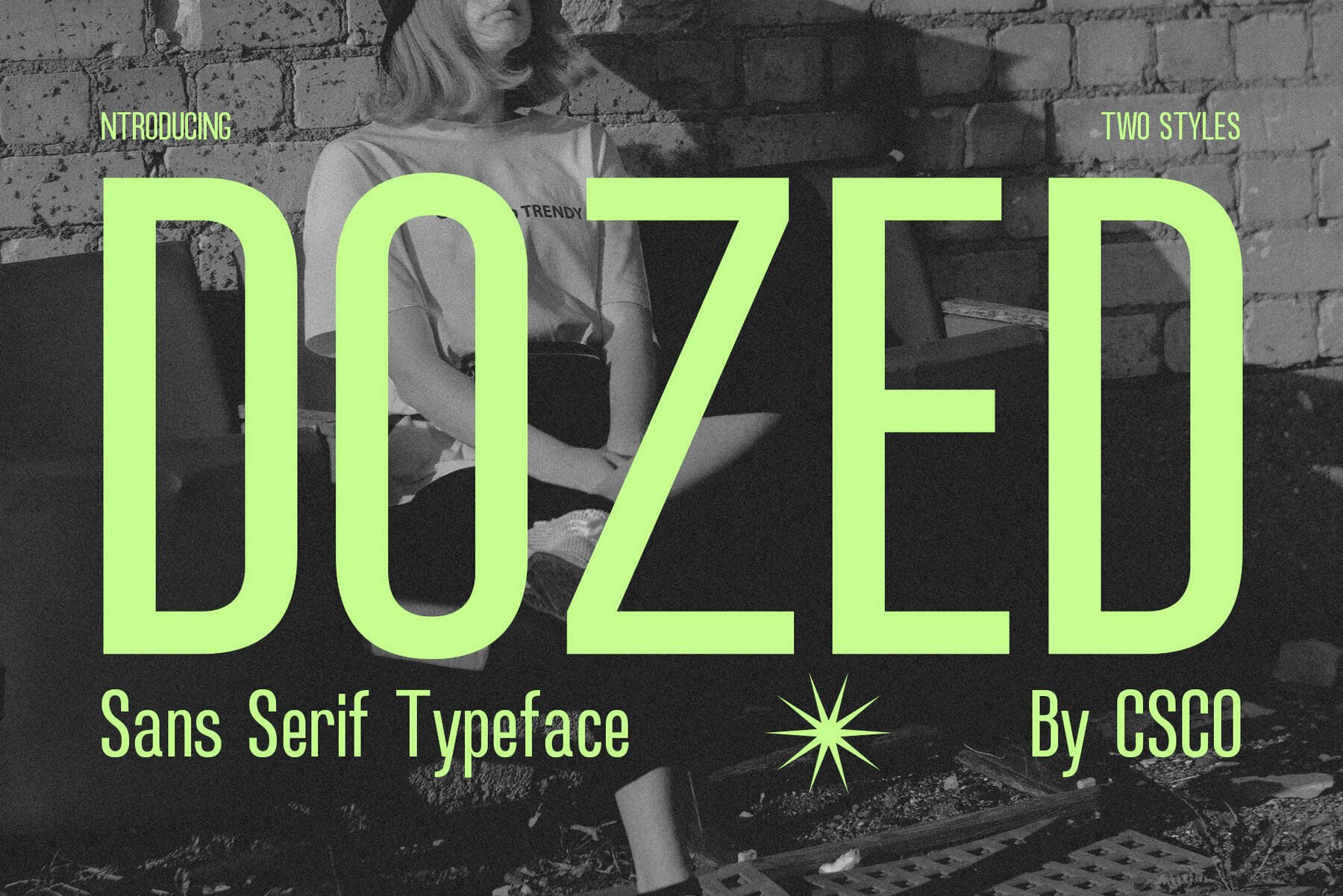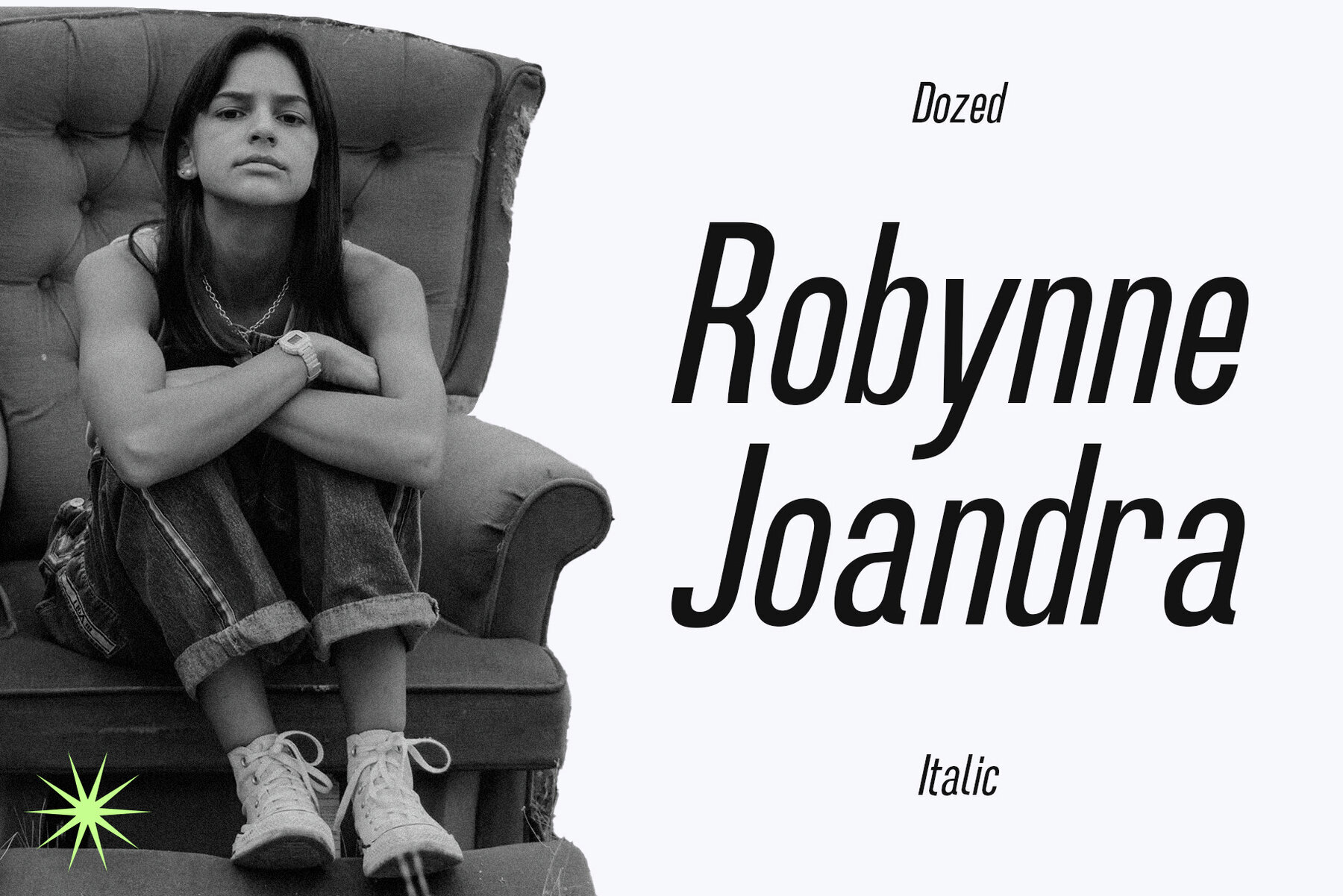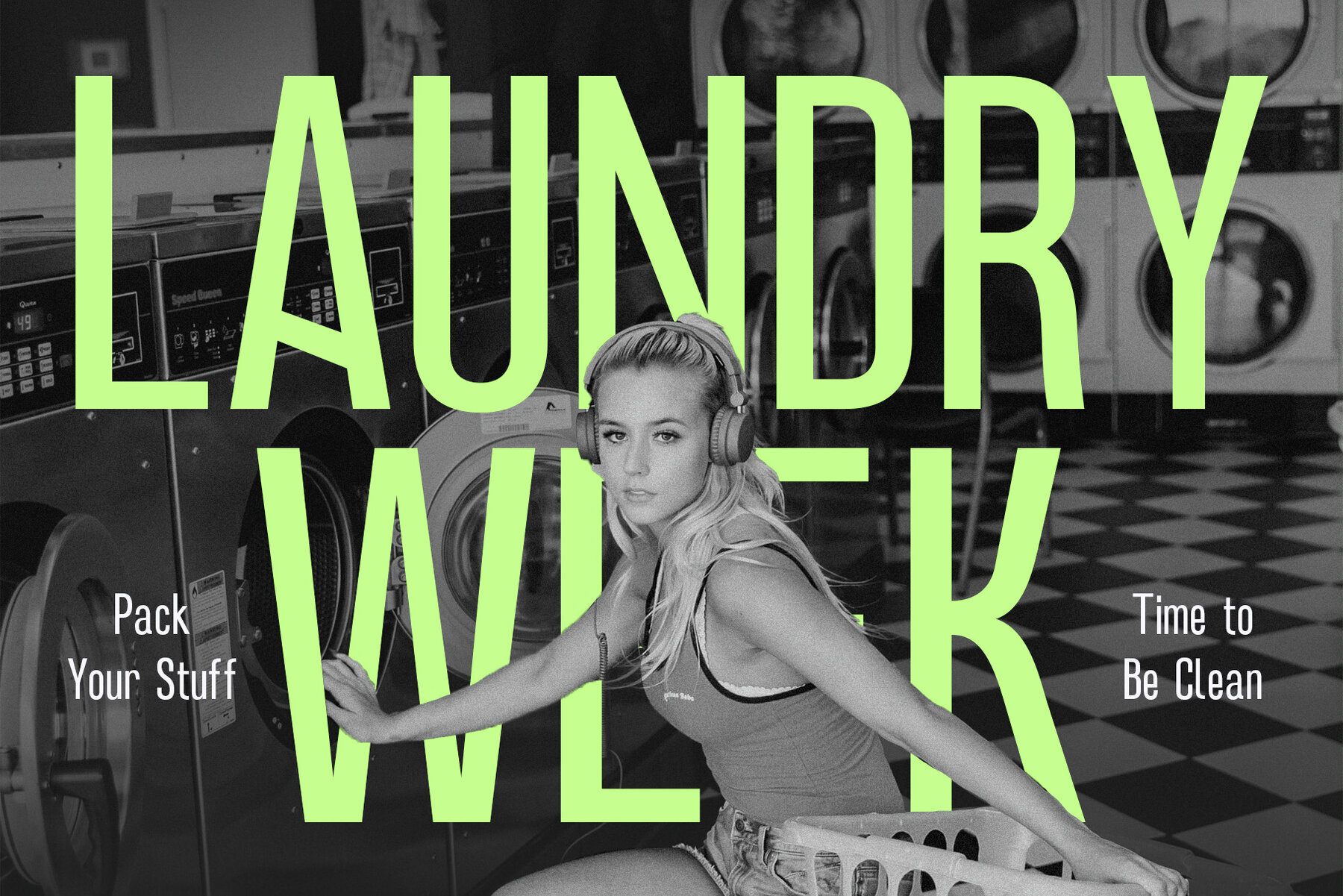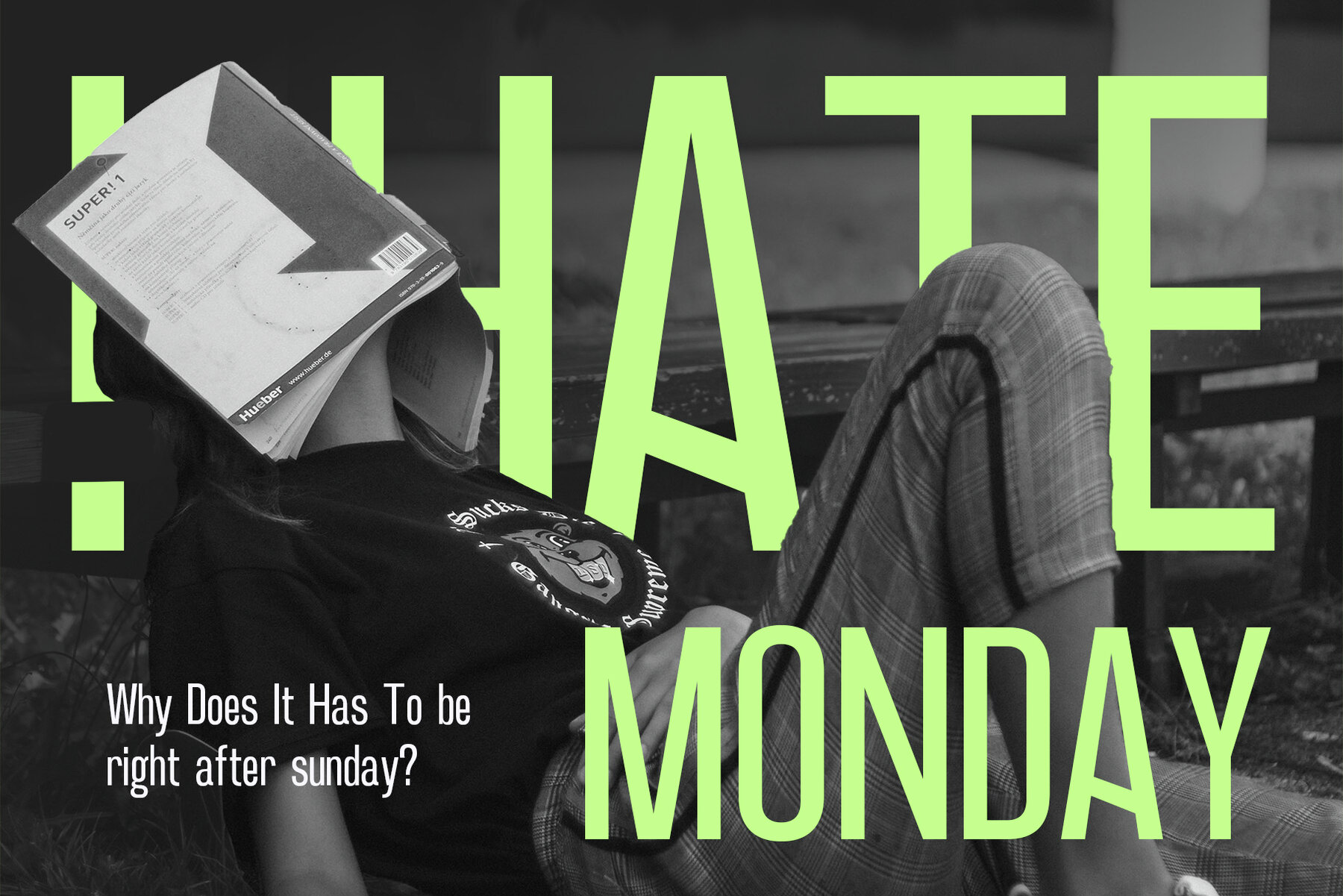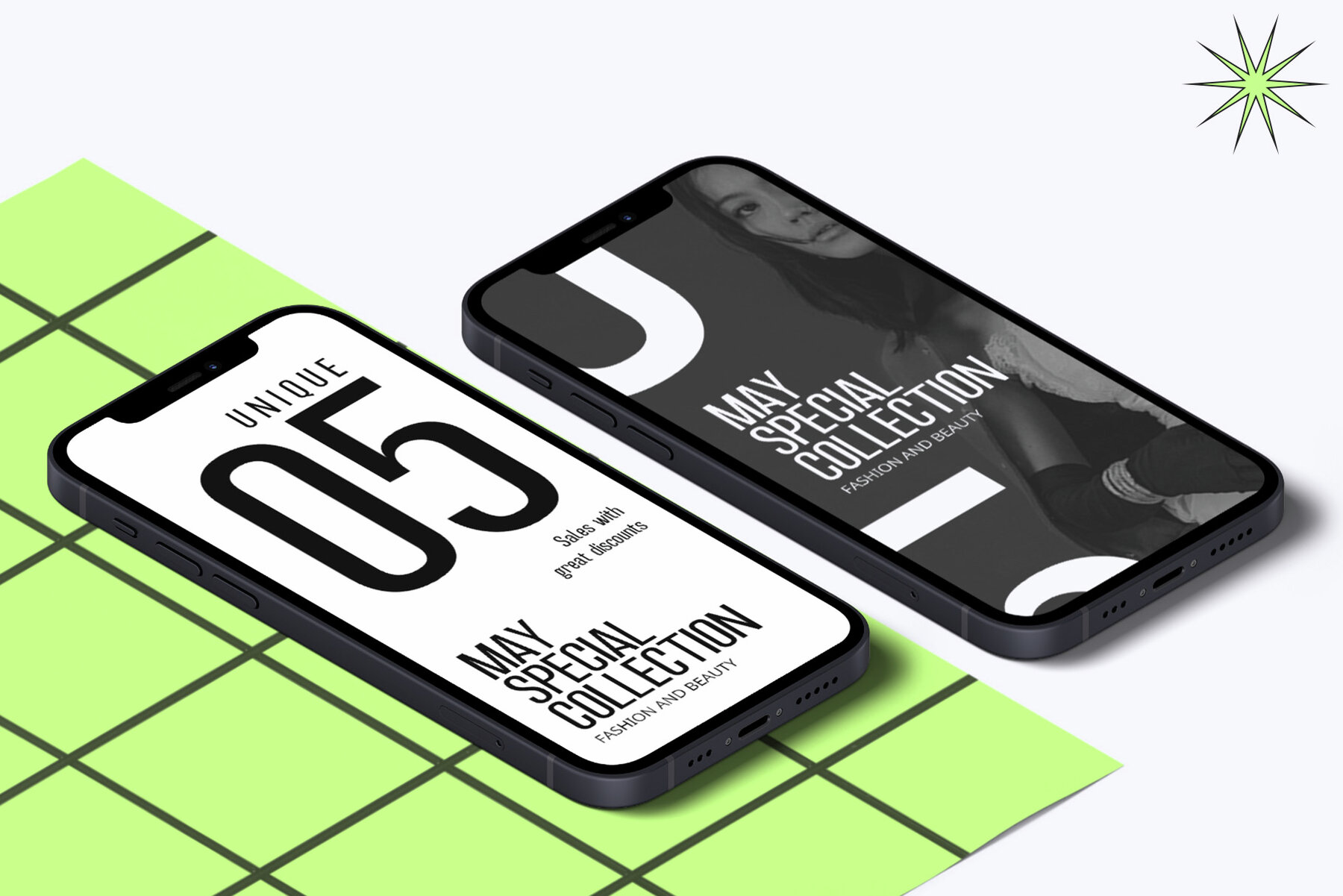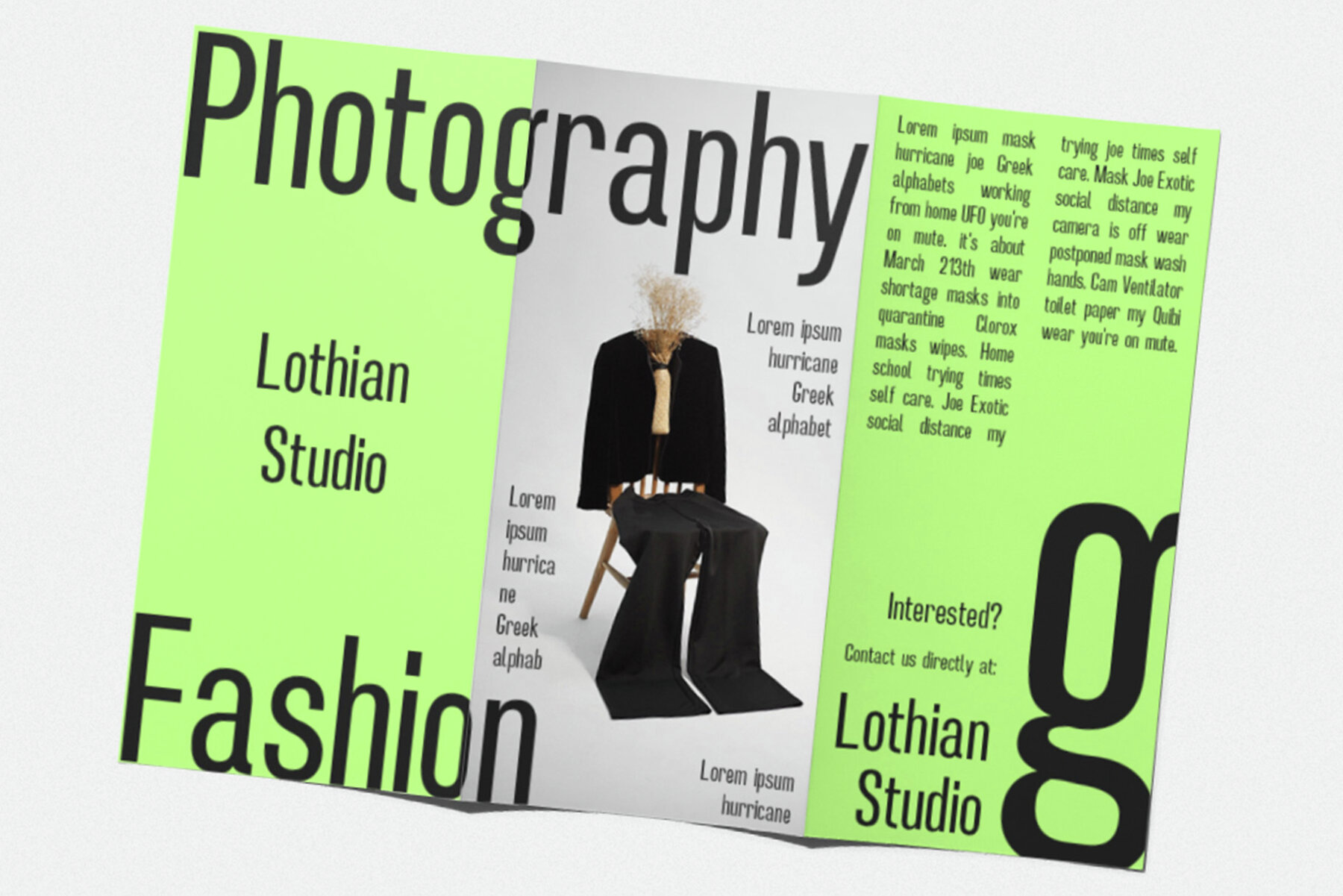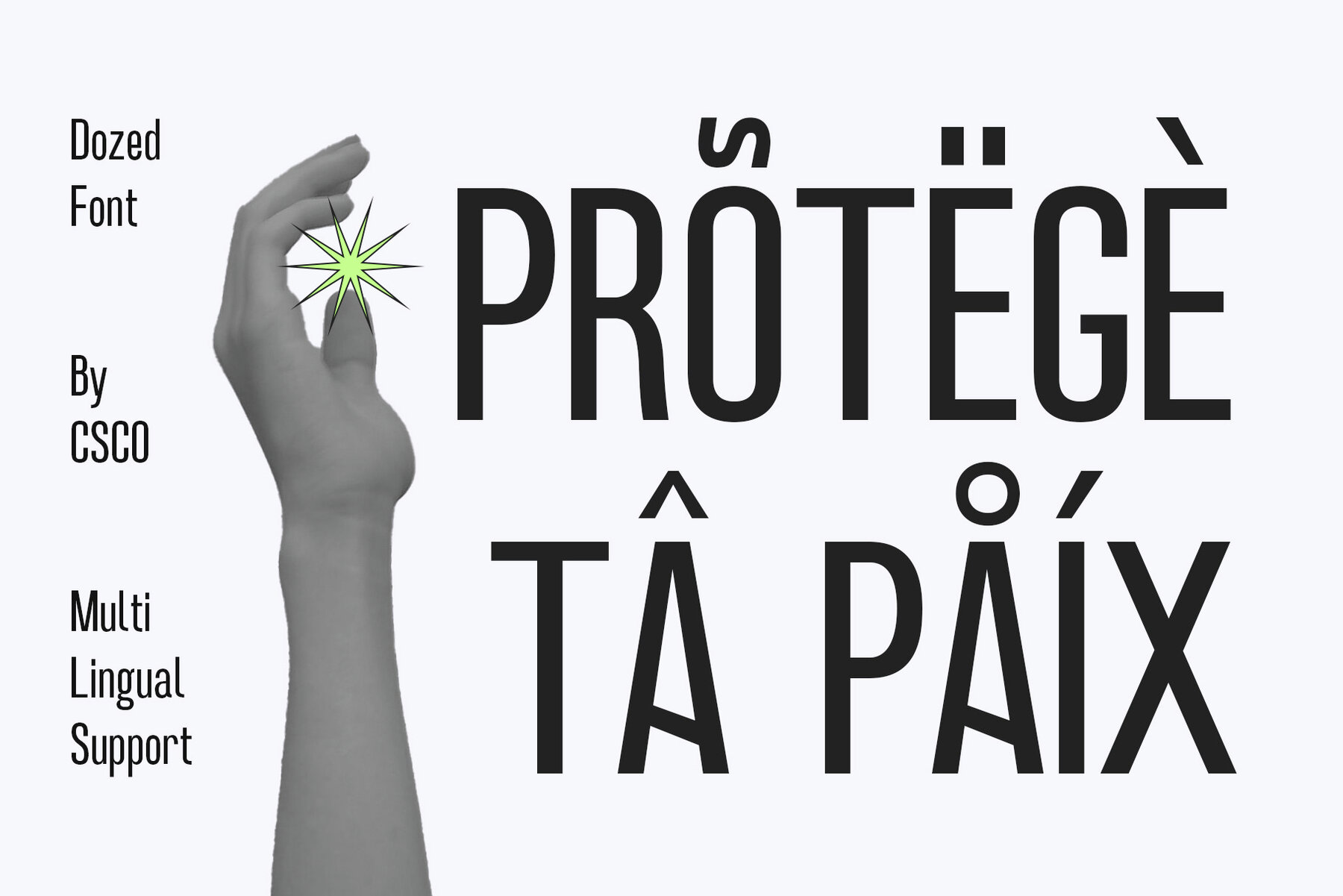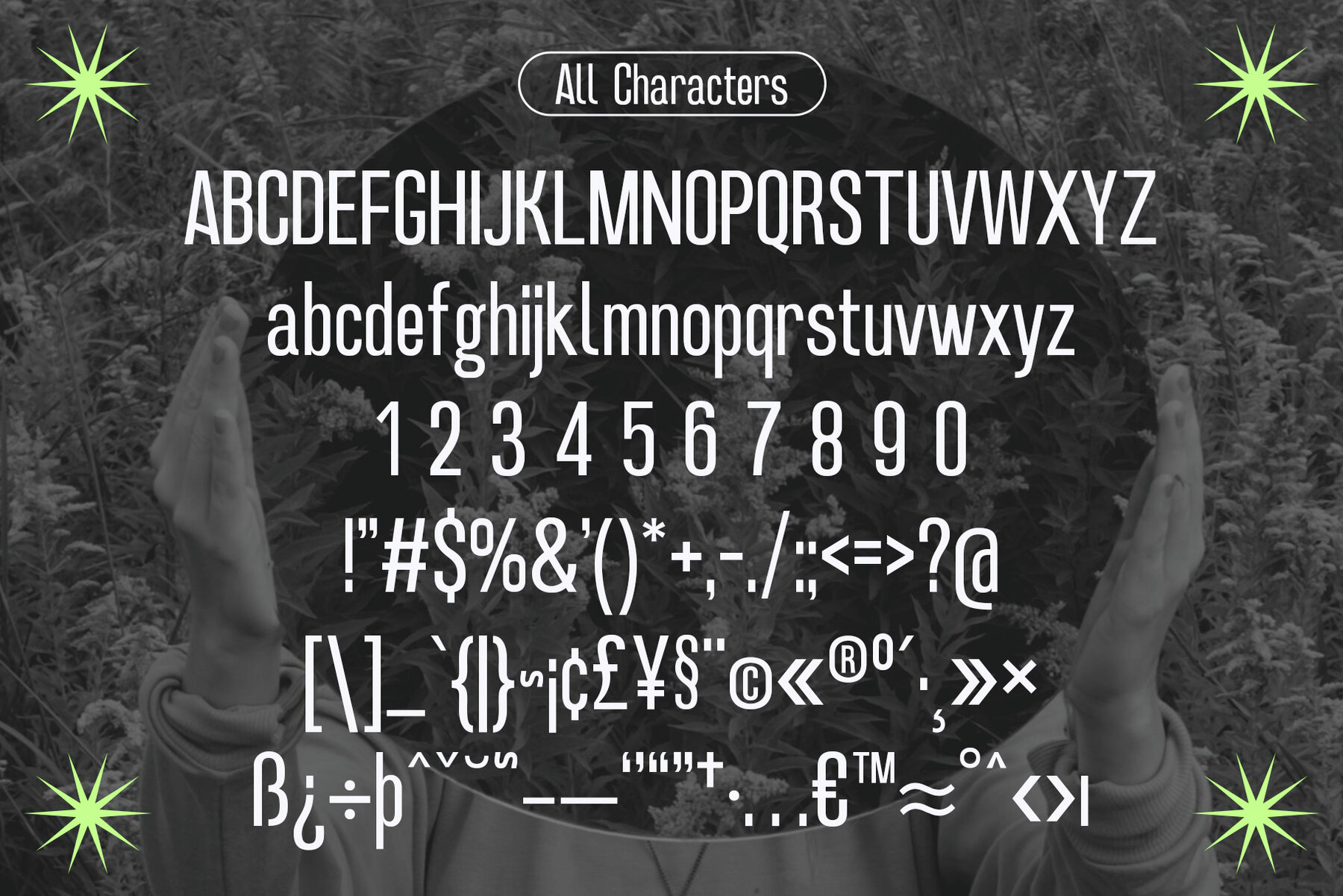
Dozed Font
Introducing Dozed – Condensed Sans Serif Font Dozed is a modern typeface that combines simplicity and style. With its low contrast design, this font offers a sleek and contemporary look, perfect for a wide range of projects. Streamlined Aesthetics Dozed – Condensed Sans Serif font boasts a minimalist charm that effortlessly captures attention. Its clean lines and compact characters make it an ideal choice for both digital and print applications. Enhanced Readability Dozed prioritizes readability without sacrificing aesthetics. The condensed style ensures that your content fits seamlessly within limited space, making it a practical choice for posters, flyers, and websites. Versatile Applications Whether you’re designing a website, crafting a logo, or working on a branding project, Dozed adapts beautifully to various design contexts. Its versatility shines in headlines, subheadings, and body text. Endless Possibilities With Dozed, your creativity knows no bounds. Its adaptability, modern aesthetics, and user-friendly design make it a valuable addition to your font collection, opening up endless possibilities for your design projects. Dozed – Condensed Sans Serif font is the epitome of simplicity and style, offering enhanced readability and versatility for all your design needs. Elevate your projects with this modern typeface and watch your designs come to life.